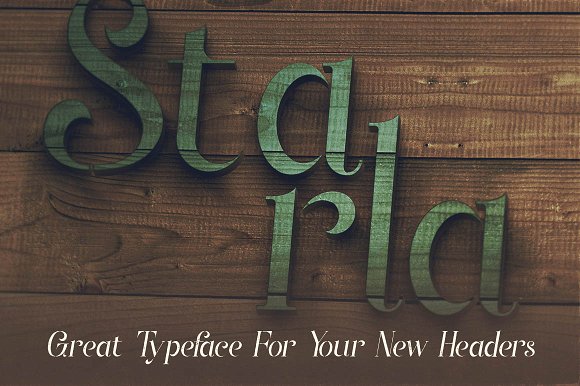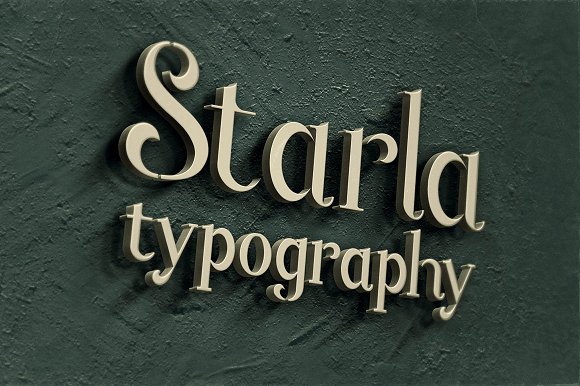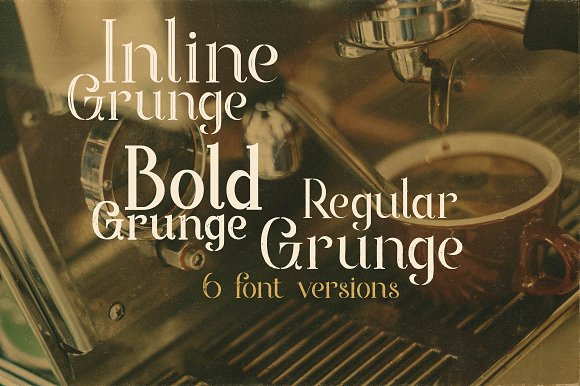
Starla – Display Font
Unique vintage or retro style custom serif font with 6 styles: regular and grunge, inline and inline grunge, bold and bold grunge!